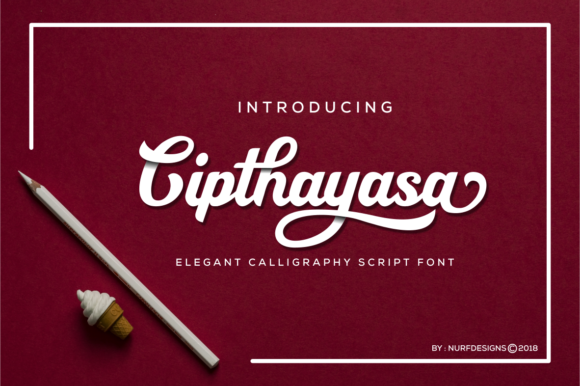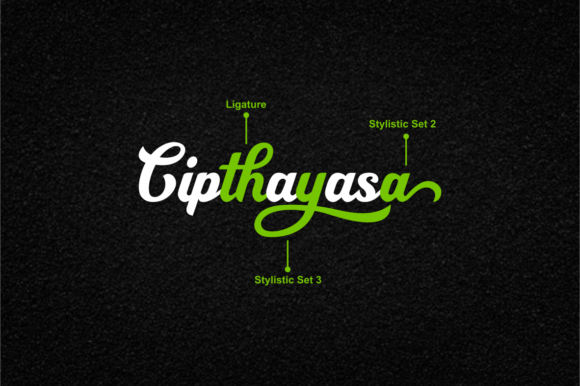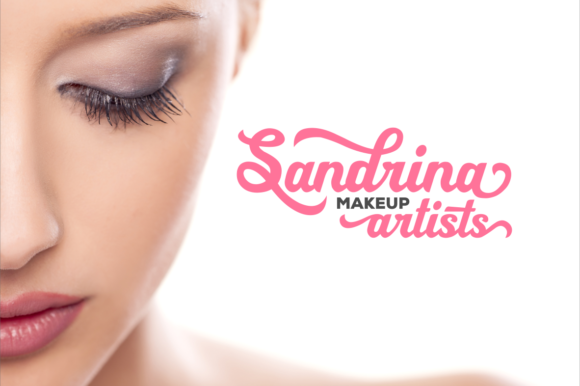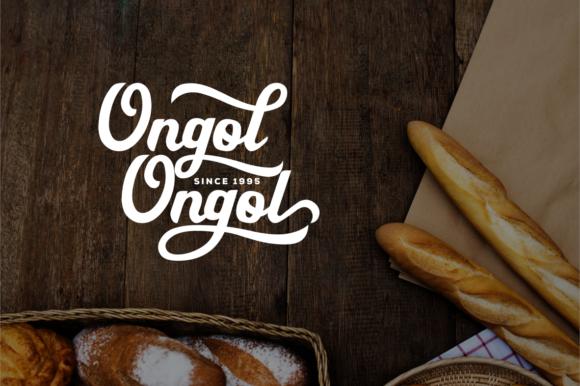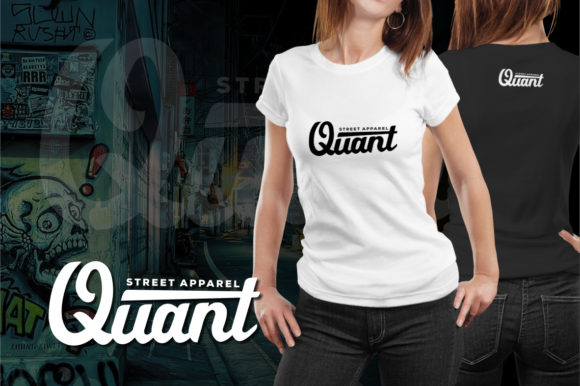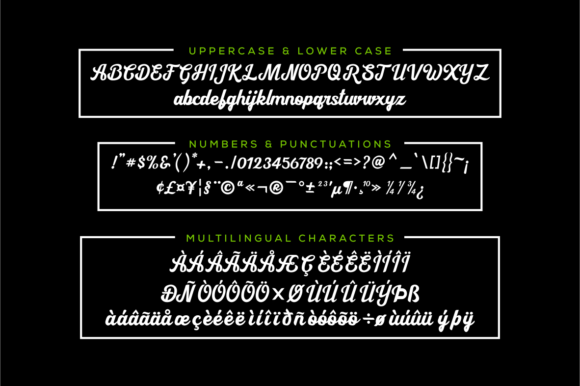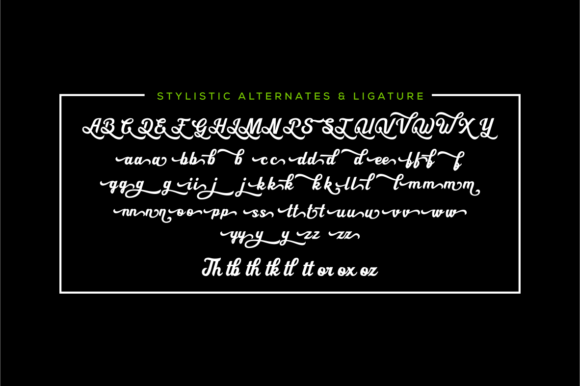
The Birth of a Beautiful Script: Exploring the Cipthayasa Font
Have you ever sat down with a blank piece of paper, a pen in hand, and let your creativity flow? The sound of scribbling on paper, the feel of the pen gliding across the surface – it’s a moment that sparks joy and fuels our imagination. As designers, we’re always on the lookout for that special something to elevate our work and make it truly unique. That’s where the Cipthayasa Font comes in – an elegant calligraphy script designed to add a touch of sophistication to any project.
Whether you’re crafting a logo, designing a t-shirt, or simply want to add a beautiful quote to your social media post, the Cipthayasa Font is the perfect choice. Its striking yet friendly typeface is sure to capture attention and leave a lasting impression. For designers, this font is a valuable asset – a go-to tool for creating visually stunning designs that stand out from the crowd.
Cipthayasa Font Key Features
- Font Family: Cipthayasa Font is a unique, high-quality font family designed to provide a wide range of styles and weights.
- Size: The font family includes 6 styles with corresponding font sizes, ranging from 14pt to 72pt, catering to various design requirements.
- Resolution: Designed for high-resolution printing and digital displays, the font supports resolutions up to 300 DPI, ensuring crisp and clear text.
- Unique Characteristics: Cipthayasa Font features a distinctive, elegant design with intricate details and ornate elements, making it perfect for luxury branding, invitations, and high-end publications.
- Language Support: The font family supports multiple languages, including Latin, Cyrillic, and Greek alphabets, allowing for global compatibility and versatility.
Cipthayasa Font Review
I recently had the chance to work with the Cipthayasa font, and I must say, it’s a unique and intriguing choice. ✨ One thing that really stands out is its high level of customization, allowing designers to adjust various parameters to achieve the perfect look. ✨ Another advantage is its open-source nature, making it easily accessible and free to use.
However, there are some limitations that need to be considered. ⚠️ Firstly, the font’s aesthetic may not be to everyone’s taste, and it can come across as somewhat unconventional. ⚠️ Additionally, the font’s performance can be inconsistent, particularly when used in smaller sizes or for extended periods of time.
Here are some specific pros and cons:
- ✨ Highly customizable
- ✨ Open-source and free to use
- ⚠️ Unconventional aesthetic
- ⚠️ Inconsistent performance
Overall, the Cipthayasa font is a bold and experimental choice that can add an interesting touch to a design. While it may not be suitable for every project, it’s definitely worth considering for those looking to push the boundaries of typography.
Tips for Getting the Most Out of Cipthayasa Font
Use the Cipthayasa font to add a unique touch to your designs.
Pair the font with other decorative elements to create a cohesive look.
Experiment with different font sizes and colors to emphasize key points.
The Cipthayasa font is ideal for:
Logo designs and branding materials
Alternatives to Cipthayasa Font for Designers
Bebas Neue is a sans-serif font with a modern and clean look. It is ideal for use in digital products, logos, and branding materials. Bebas Neue is more versatile than Cipthayasa Font, with a wider range of weights and styles available. It also has a more modern feel, making it suitable for contemporary designs.
Montserrat is a sans-serif font designed for urban environments. It is a popular choice for digital products, especially those with a focus on technology and innovation. Montserrat is more geometric than Cipthayasa Font, with a stronger emphasis on vertical lines. It is ideal for use in interfaces, apps, and websites.